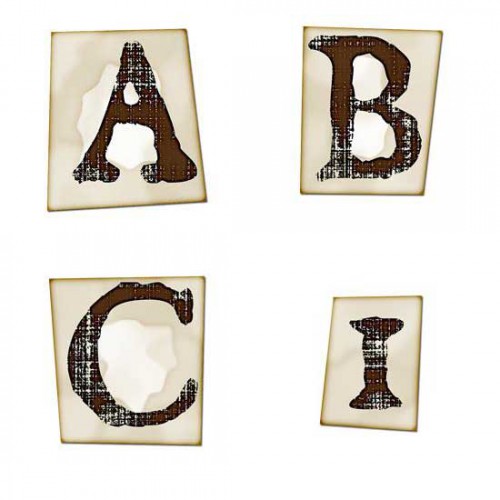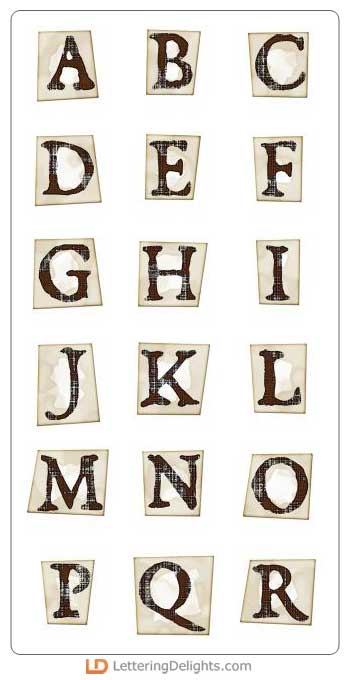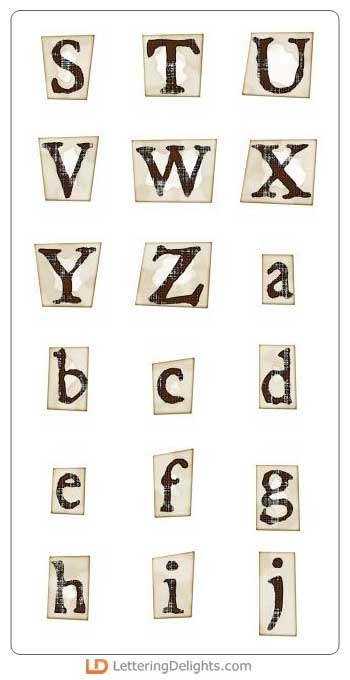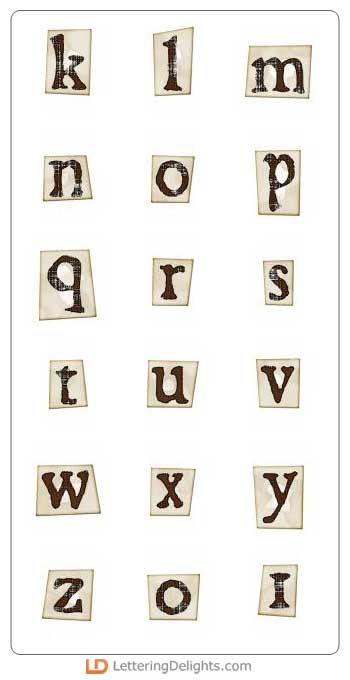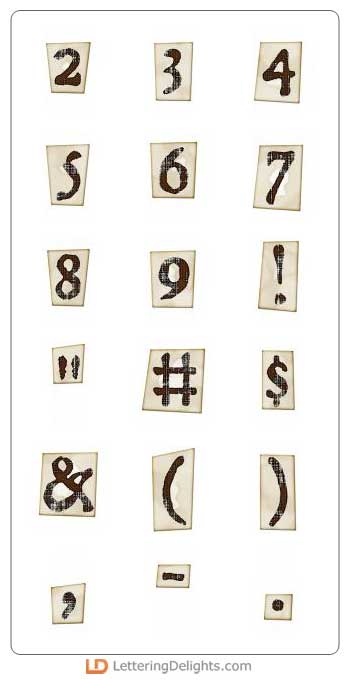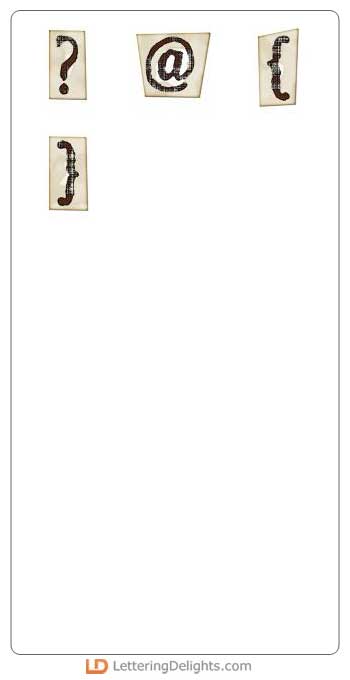
Have you ever snipped out squares of individual letters to create a word? {Maybe I was the only kid to do that...} The Antique Tag Alphabet looks as though characters were typed years ago with a beautiful old vintage typewriter on paper that has now aged and weathered.